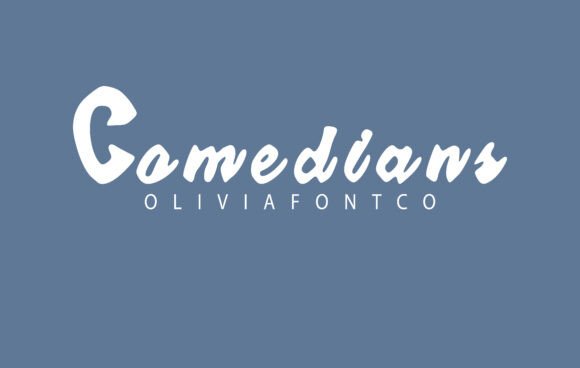
Introducing Comedians Font: The Ultimate Handwritten Font with a Romantic Touch
Are you looking for a font that can add a personal touch to your creative projects? Look no further than Comedians Font, an authentic handwritten font that exudes a romantic and whimsical feel. Designed to be a true favorite among designers and creatives, Comedians Font has the potential to elevate your designs to new heights. In this article, we’ll explore the features and benefits of Comedians Font, and how it can be used to create stunning designs for various applications.
What is Comedians Font?
Comedians Font is a carefully crafted handwritten font that boasts a unique and romantic touch. Its authentic and organic feel makes it perfect for designs that require a personal and emotional connection with the audience. Whether you’re creating a wedding invitation, a social media post, or a magazine headline, Comedians Font is the ideal choice.
Key Features of Comedians Font
- Legibility: Comedians Font is designed to be highly legible, making it perfect for both title and body text.
- Romantic Touch: The font’s handwritten style gives it a romantic and whimsical feel that’s perfect for designs that require an emotional connection.
- Versatility: Comedians Font can be used for a wide range of designs, including magazine headlines, social media posts, branding, wedding invitations, cards, and more.
- Authenticity: The font’s authentic and organic feel makes it stand out from other fonts, giving your designs a unique and personal touch.
Benefits of Using Comedians Font
Using Comedians Font can bring numerous benefits to your designs. Here are a few:
- Emotional Connection: The font’s romantic touch can help create an emotional connection with your audience, making your designs more relatable and engaging.
- Uniqueness: Comedians Font’s authentic and organic feel makes it stand out from other fonts, giving your designs a unique and distinctive look.
- Flexibility: The font’s legibility and versatility make it perfect for a wide range of designs, from titles to body text.
- Professionalism: Using a high-quality font like Comedians Font can add a touch of professionalism to your designs, making them more polished and refined.
Use Cases for Comedians Font
Comedians Font is a versatile font that can be used for a wide range of designs. Here are a few examples:
- Wedding Invitations: The font’s romantic touch makes it perfect for wedding invitations, adding a personal and emotional touch to the design.
- Social Media: Comedians Font can be used to create engaging social media posts that stand out from the crowd.
- Magazine Headlines: The font’s legibility and uniqueness make it perfect for magazine headlines, adding a touch of personality to the design.
- Branding: Comedians Font can be used to create a unique and memorable brand identity that stands out from the competition.
- Cards: The font’s romantic touch makes it perfect for creating personalized cards for special occasions.
Tips for Using Comedians Font
Here are a few tips for using Comedians Font effectively:
- Use it sparingly: While Comedians Font is a beautiful font, it’s best to use it sparingly to avoid overwhelming the design.
- Pair it with other fonts: Comedians Font can be paired with other fonts to create a unique and interesting design.
- Experiment with colors: The font’s romantic touch can be enhanced by using pastel colors or other soft hues.
- Pay attention to spacing: Make sure to adjust the spacing between letters and words to create a clean and legible design.